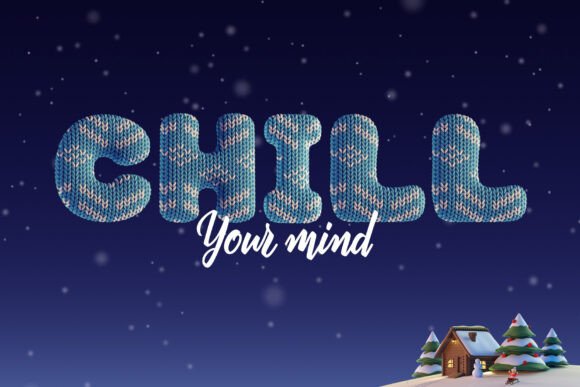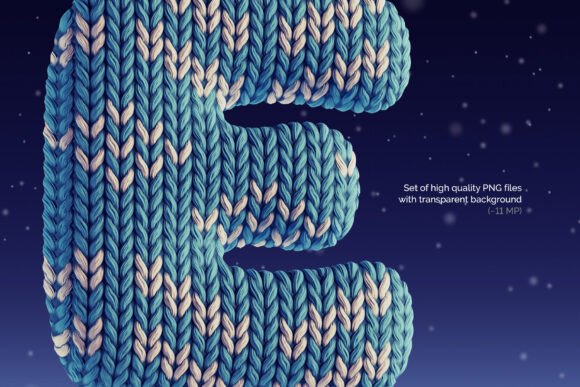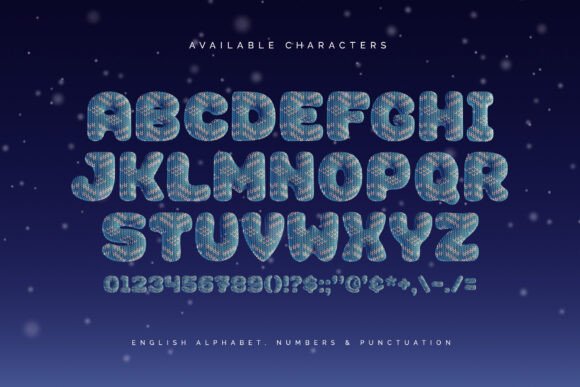
Introducing Cozy Winter: A Snug and Creative Font Set for Designers and Crafters
As the winter season approaches, designers and crafters are on the lookout for creative and cozy elements to add a personal touch to their projects. If you’re searching for a unique and snug font to capture the warmth and essence of winter, look no further than **Cozy Winter**. This beautifully crafted font set is designed to bring a sense of comfort and style to your designs, with a 3D-rendered, high-quality typeface featuring knitted fabric with a cozy sweater pattern.
What Makes Cozy Winter Special?
Cozy Winter is not your average font set. It’s a color bitmap OpenType-SVG font, which works seamlessly like a regular OTF font, offering a fresh and innovative approach to typography. The set includes full-resolution PNG files with transparent backgrounds, boasting an average resolution of 11 megapixels. This ensures that your designs will have a crisp and clear appearance, perfect for both digital and print applications.
Key Features of Cozy Winter
- 3D-Rendered Design: The font features a unique 3D-rendered design with a knitted fabric texture, giving it a cozy and realistic sweater-like appearance.
- OpenType-SVG Font: Cozy Winter works like a regular OTF font but with the added benefit of being a color bitmap font, allowing for vibrant and detailed designs.
- English Language Support: The font supports the English language and basic punctuation. Please refer to the screenshot for a full list of available characters.
Cozy Winter is an ideal choice for designers looking to add a personal and seasonal touch to their projects. Whether you’re working on holiday cards, winter-themed invitations, or cozy sweater designs, this font set provides the perfect elements to make your work stand out. Crafters will also appreciate the detailed texture and warmth the font brings to their projects, making it perfect for crafting blogs, DIY tutorials, and handmade product labels.
Tips for Using Cozy Winter
- Experiment with Colors: Take advantage of the color bitmap feature by experimenting with different color schemes to match your project’s theme.
- Combine with Other Elements: Pair Cozy Winter with other winter-themed graphics or illustrations, like the included 3D winter landscape, to create cohesive and engaging designs.
Cozy Winter offers a fresh and creative approach to winter-themed designs, providing a snug and stylish font set that’s perfect for designers and crafters alike. With its unique 3D-rendered texture, high-resolution PNG files, and compatibility with popular design software, Cozy Winter is sure to become a favorite in your font collection. Add a touch of warmth and coziness to your projects with Cozy Winter, and make this winter season one to remember.